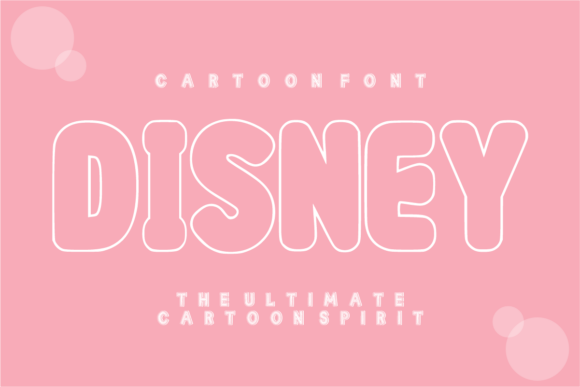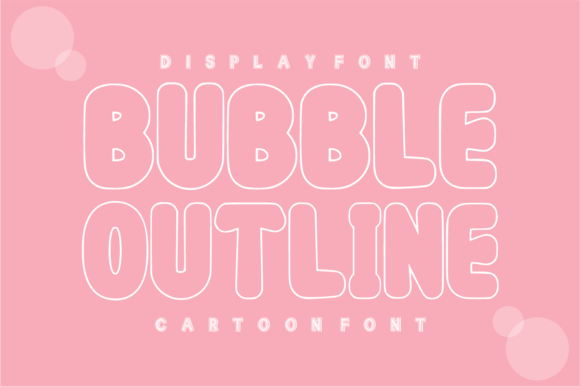
Introduction to Smooth Outline Font
Remember the thrill of discovering a game-changing design element that elevates your creative project to new heights? For designers like you, that moment often comes when you stumble upon a versatile and stylish font that effortlessly adds a touch of personality to your work.
That’s exactly what the Smooth Outline Font does – it brings a fresh, airy vibe to any design, making it perfect for high-impact titles, stickers, and more. With its clean, rounded characters and smooth edges, this trendy display font is a must-have for designers seeking to add a modern twist to their work.
Key Features of Smooth Outline Font
• Unique and creative font style with smooth outlines, perfect for artistic projects and designs.
• Perfect for creative projects, such as graphic design, digital art, and typography-based designs.
Honest Review: Smooth Outline Font
As a designer, I’m always on the lookout for high-quality design resources that can elevate my creative project. I recently stumbled upon the Smooth Outline Font, and I’m excited to share my honest review with you.
Some notable features include:
• High-quality design with a transparent background, perfect for creating visually appealing designs
However, I did encounter a few limitations: ⚠️ The font is not suitable for small text sizes, and the outline can become pixelated if not used correctly.
Overall, I’m impressed with the Smooth Outline Font and would recommend it to designers looking for a high-quality, creative design resource. While it’s not perfect, its strengths far outweigh its limitations, making it a valuable addition to any designer’s toolkit.
Getting the Most Out of Smooth Outline Font
For high-quality results, use the Smooth Outline Font in conjunction with a transparent background. This will give your design a clean and modern look. You can also experiment with different font sizes and colors to add visual interest to your project.
The Smooth Outline Font is a versatile design resource that can be used in a variety of creative projects, such as logos, infographics, and social media graphics. It’s also a great choice for presentations and reports where a clean and modern look is desired.
Yes, the Smooth Outline Font features a transparent background, making it perfect for designs with complex backgrounds or intricate compositions. This allows for a high level of design flexibility and creativity.